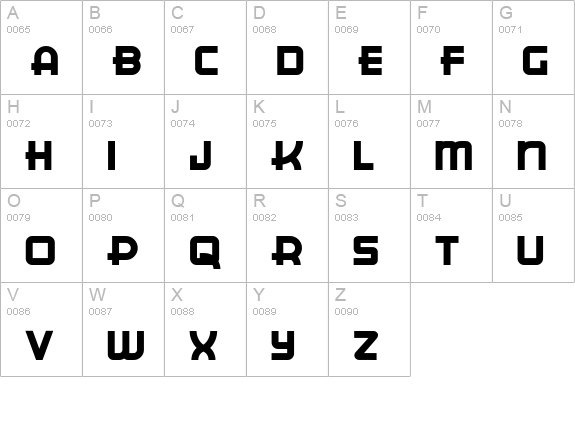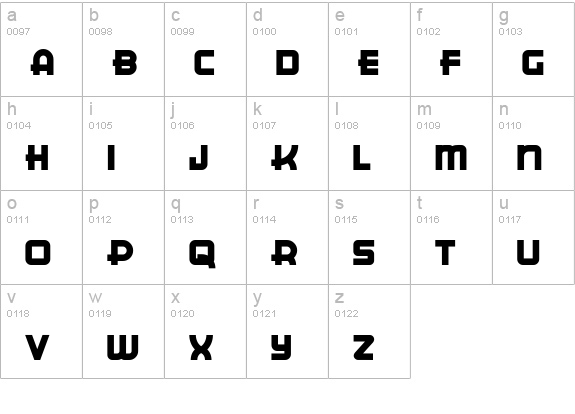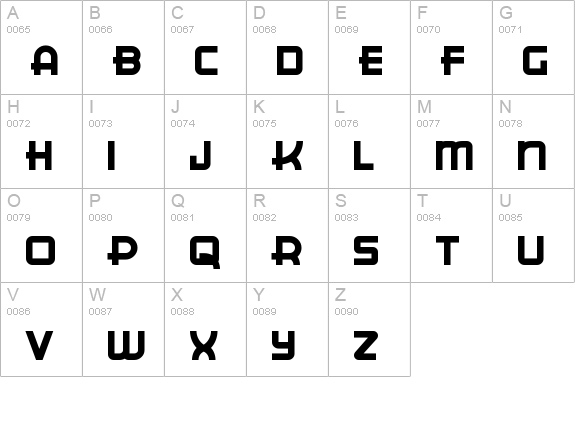
CuppaJoe Font Details
CuppaJoe font is a delightful and versatile typeface that exudes warmth and charm. Its playful yet elegant design makes it perfect for a wide range of projects, from branding to invitations. The smooth curves and quirky details of CuppaJoe font add a unique touch to any text, making it stand out from the crowd. The best part? CuppaJoe font is completely free to download at FontsMarket.com. This means that you can easily add this stylish font to your collection without breaking the bank. Whether you're a designer looking to add a fresh new font to your toolkit or a DIY enthusiast wanting to spruce up your projects, CuppaJoe font is a fantastic choice. Download it today and let your creativity shine with this fabulous and free font!